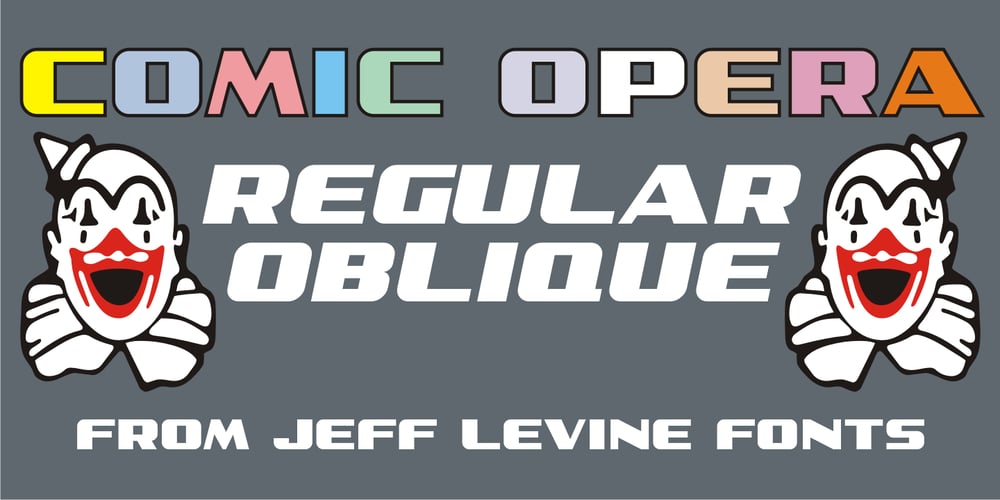
Comic Opera JNL
Comic Opera JNL font
Comic Opera JNL Font Family was designed by Jeff Levine and published by Jeff Levine. Comic Opera JNL contains 2 styles and family package options. Comic Opera JNL (and its oblique version) is a wide, bold sans serif type design with an Art Deco influence based on a 1930s namesake poster from the WPA (Works Progress Administration) advertising a performance put on by the Federal Music Project.